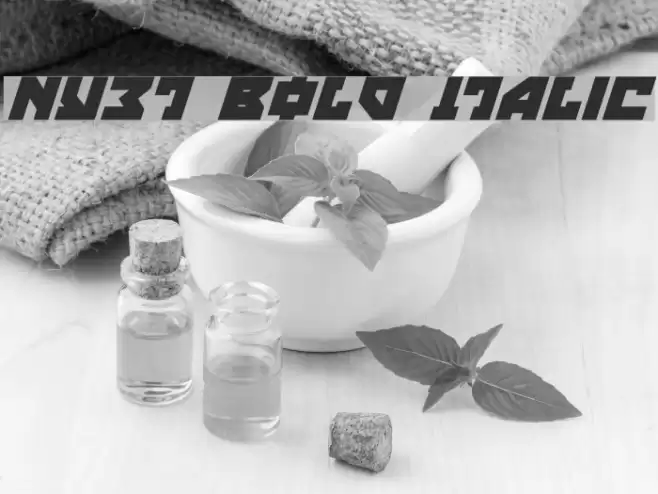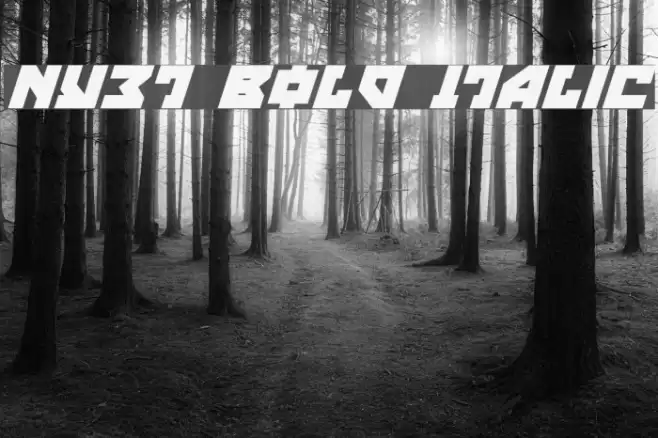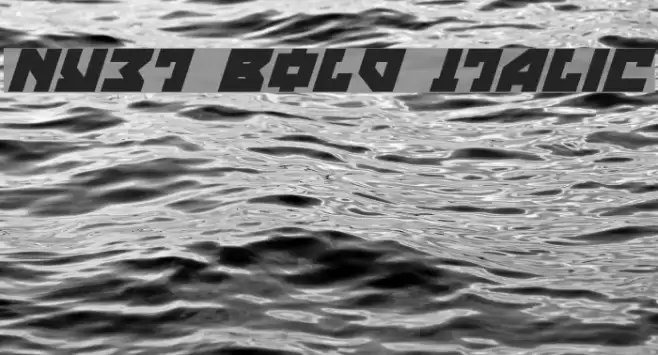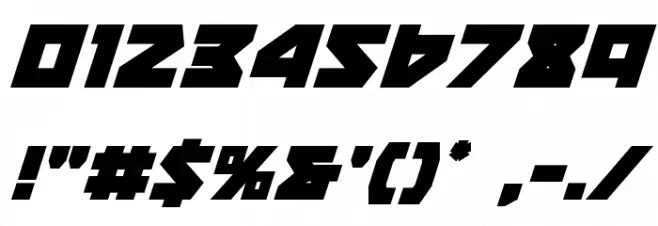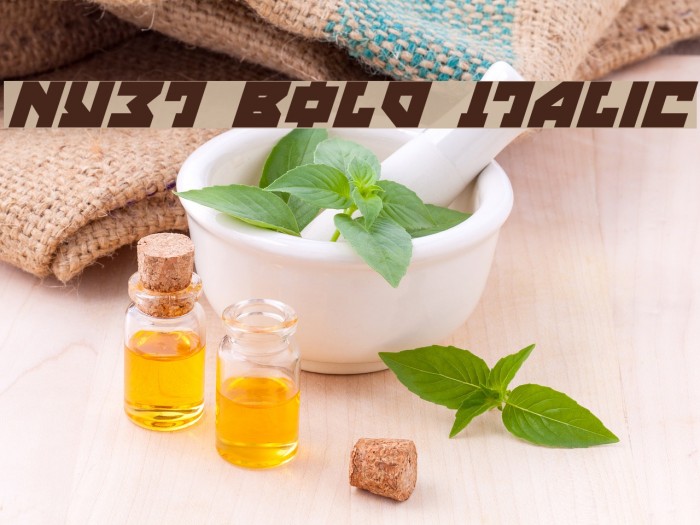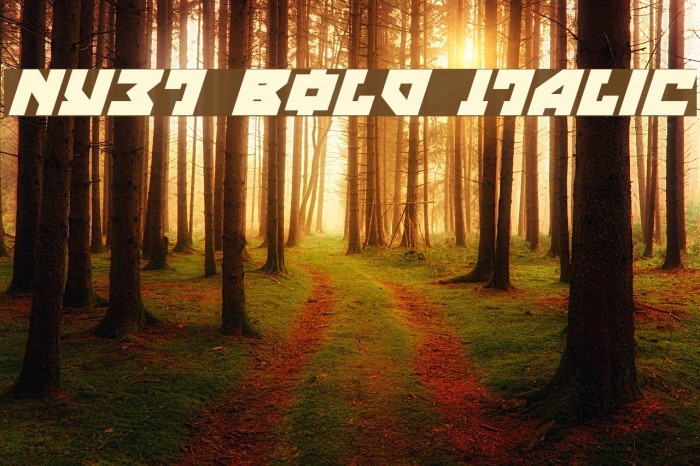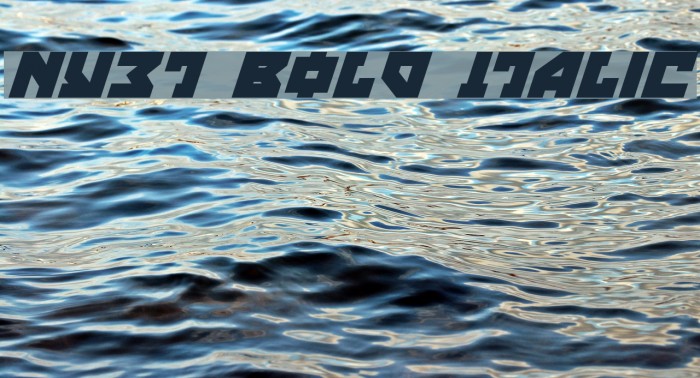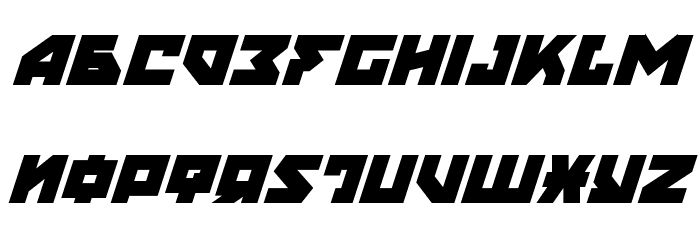
Nyet Bold Italic Font
Nyet Bold Italic Description
This font features a bold and italicized style with a distinctly angular and geometric design. The characters are sharply cut with a futuristic aesthetic, giving it a dynamic and energetic appearance. The uppercase and lowercase letters maintain a consistent slant, enhancing the italic effect. The numbers and special characters follow the same stylistic cues, ensuring a cohesive look across all glyphs. This font's boldness and unique angles make it stand out, suitable for projects that require a modern and edgy feel.
A bold, italicized font with angular, geometric design and a futuristic aesthetic from Uncategorized fonts.
- Proposed Projects: Ideal for sci-fi themed designs, video game titles, futuristic branding, and dynamic posters.